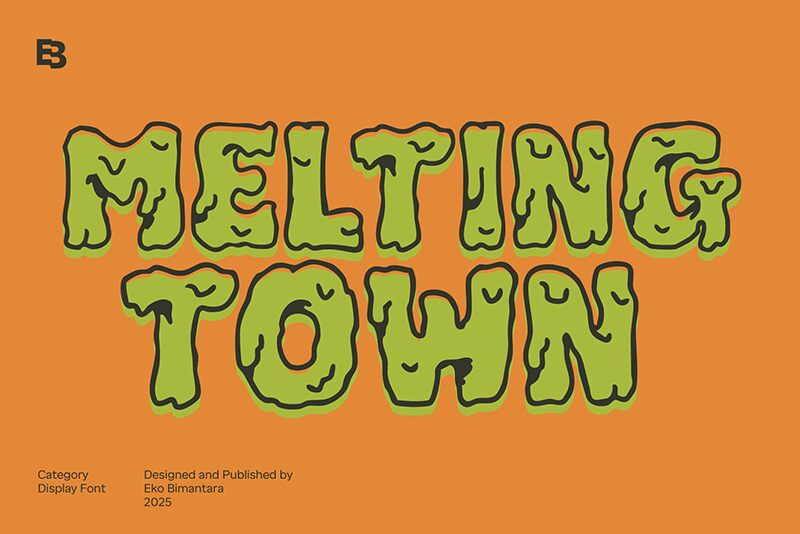
Melting Town
Melting Town font is a spooky, irregular display font designed by Eko Bimantara. Its bold characters resemble drippings which gives it an eerie, surreal appearance. Taking inspiration from melted shapes and deformed objects, this free Halloween typeface will fit perfectly in a design that additionally showcases some similar vector graphics/illustrations.
Inspired by gory horror movies and blood-chilling vibe artworks, designers can utilize this typeface in books, magazines covers/headings & body text posters designs, web UIs’ content media agency identities logos business cards among other spooky stuff related projects possible requests!